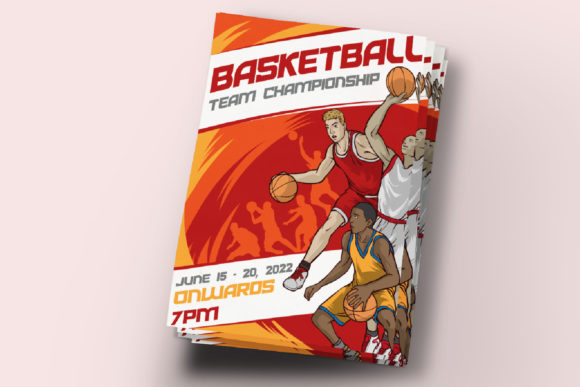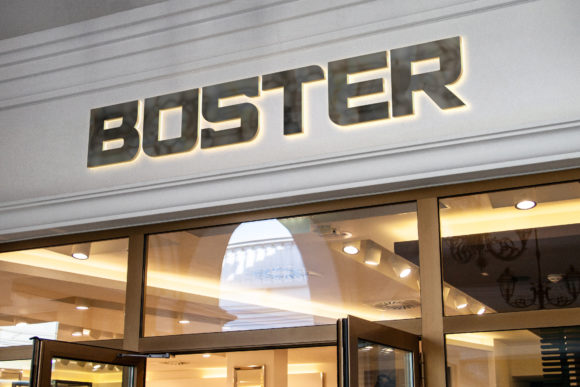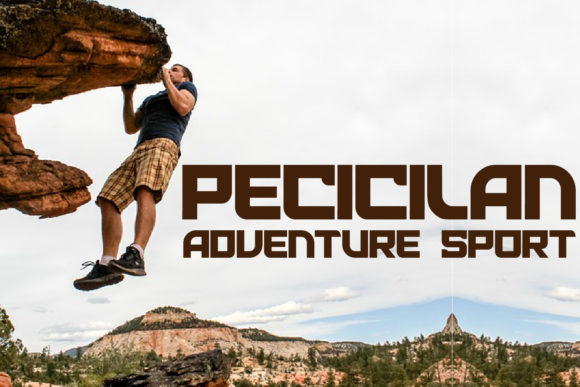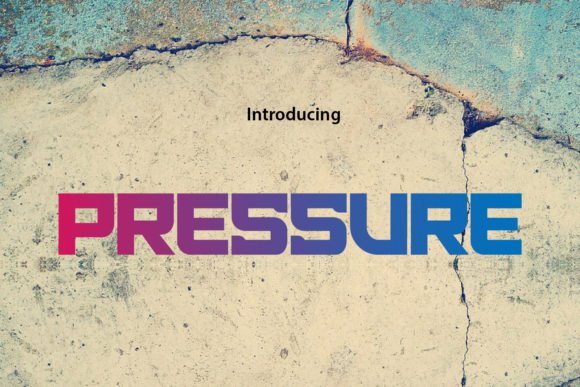
Introduction to Pressure Font
Pressure is a bold and futuristic display font.
Get inspired by its unique style and use it to create outstanding designs .
Key Features of Pressure Font
Why Choose Pressure Font?
Pressure Font offers exceptional quality and versatility, making it a valuable addition to your design toolkit. Whether you’re creating for personal projects or commercial use, Pressure Font delivers professional results.